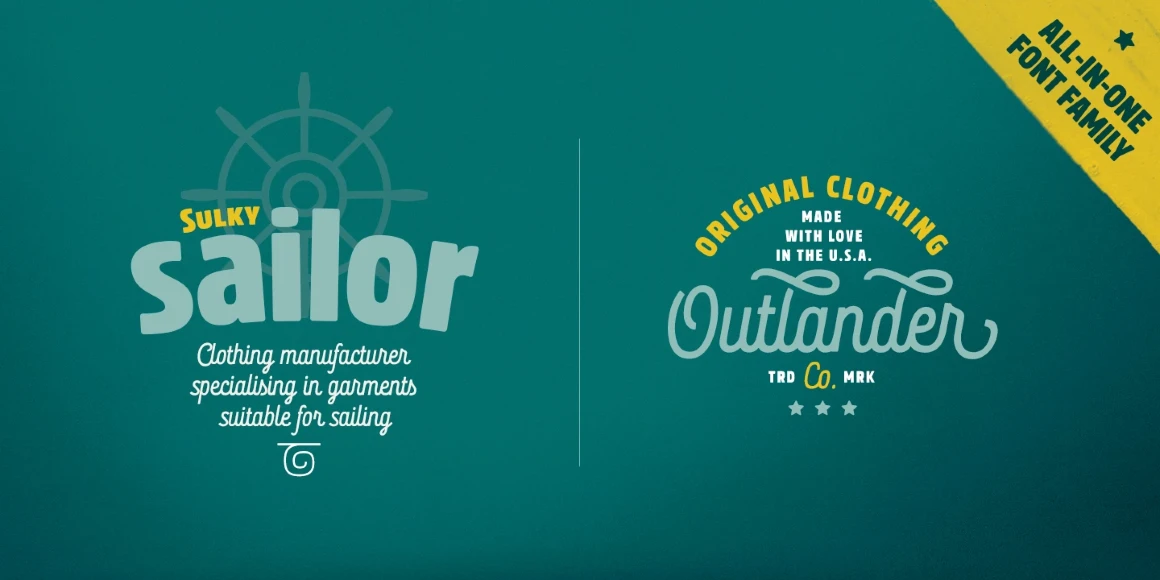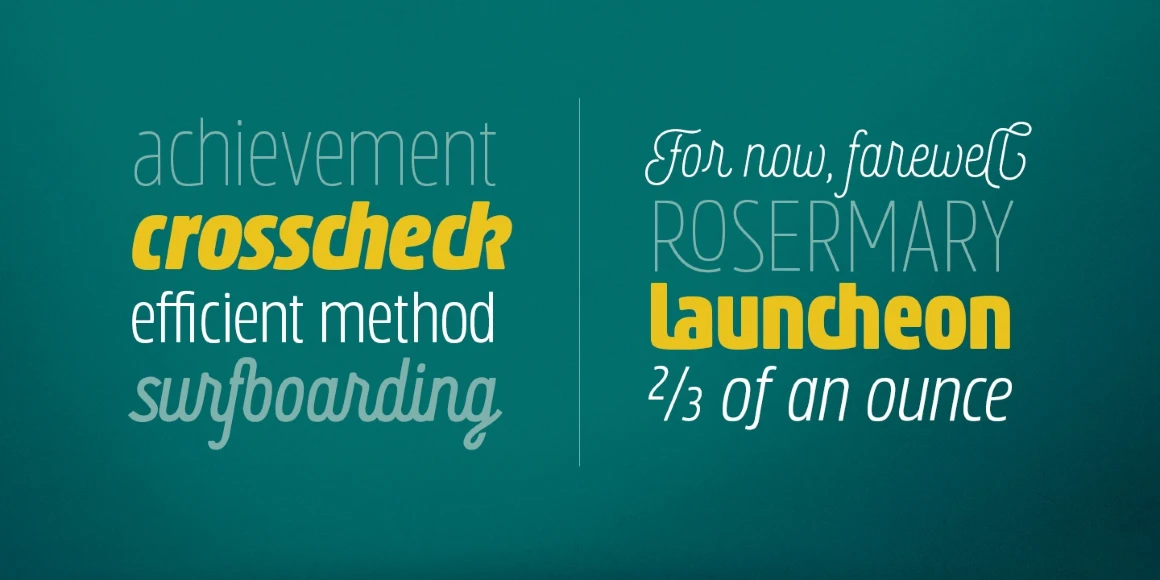
Rockeby Script
By Elena Genova
Rockeby Script is a friendly, monolinear face that can be perfectly paired with the rest of the Rockeby family of typefaces. Combining an italic with a script, you get the best of both. You could even pair it with Rockeby as a more decorative italic. Light to Black, plus a Stencil version! Lots of alternates and ligatures to add even more detail and distinctiveness to your typography.